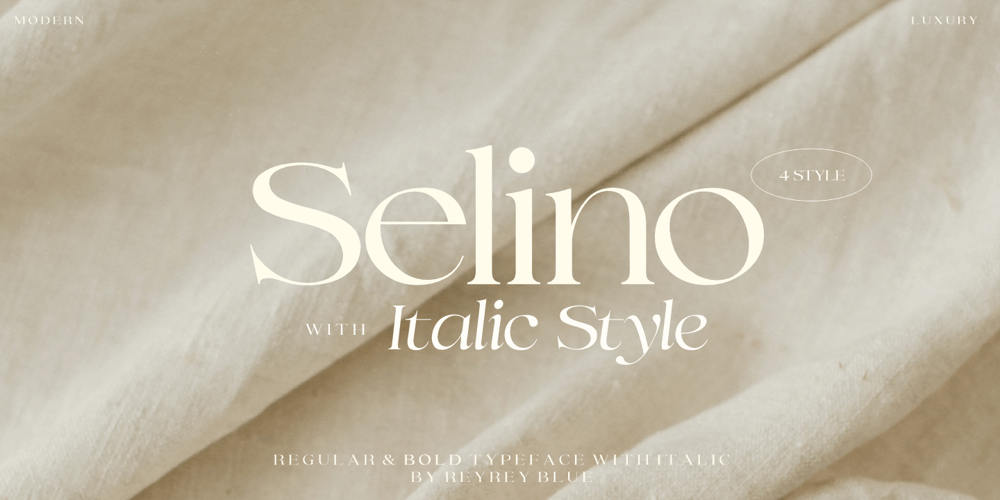
Selino Font Family was designed by Risca Anitawati and published by Reyrey Blue Std. Selino contains 4 styles and family package options. Introducing, Selino Family Typeface. An elegant, classy with artistic touch family typeface.Selino Family Typeface is perfectly suitable for layout design for quotes or body copy, best used as a display for headings, logos, branding, magazines, product packaging, invitations. logotypes, and much more. Don’t wait to add this luxury font family to your collection and start designing straight away.Features :· Font Family totals 4 fonts (Bold, Bold Italic, Regular, Regular Italic)· All Uppercase and Lowercase· Number & Symbol· Supported Languages· Alternates and Ligatures· PUA EncodedHope you enjoy with our font!